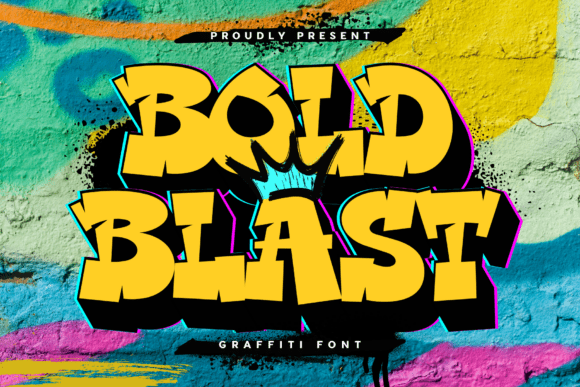
Introduction to Bold Blast Font
Introducing Bold Blast, the urban graffiti-inspired typeface that commands attention.
This bold, edgy font captures the raw energy and dynamic flair of city street art Its distinctive characters truly encapsulate a culture, transforming every design they grace.
Key Features of Bold Blast Font